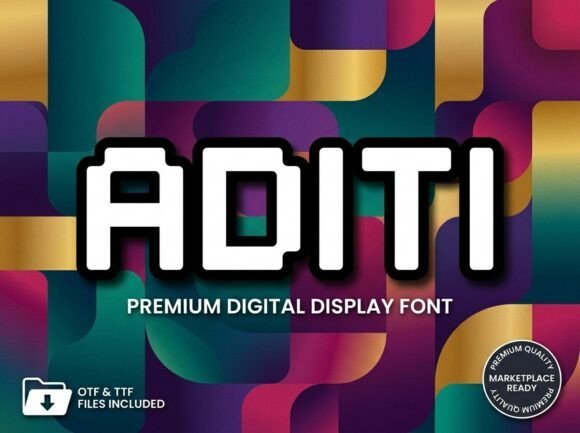
Unlock the Power of 8-Bit Chic with Aditi Font
As a designer, have you ever been tasked with crafting a logo that screams innovation and nostalgia at the same time? Perhaps you’re working on a project that requires a font that embodies the spirit of retro gaming and modern interface design. Whatever the challenge, we have the solution for you – meet Aditi Font, a premium digital display font that’s poised to revolutionize the world of tech-themed branding.
With its bold, blocky letterforms and clean geometric silhouettes, Aditi Font is the perfect choice for designers looking to create a pixel-perfect aesthetic. Its thick visual weight and smooth, high-contrast outlines make it an exceptional choice for e-sports logos, app interface headers, and high-impact social media graphics.
Key Features of Aditi Font
- Font Family: Aditi is a sans-serif font family designed for Indian languages, making it a unique and versatile option for multilingual applications.
- Character Set: Supports a comprehensive set of characters for Indian languages, including Devanagari, Tamil, Telugu, Kannada, and more.
- Font Styles: Available in multiple font styles, including Regular, Bold, Italic, and Bold Italic, providing flexibility for various design and layout requirements.
Designer Review: Aditi Font
I recently had the chance to work with the Aditi font, and I must say it’s a unique and interesting typeface. ✨ One of the things that works well is its ability to adapt to different languages and scripts. The font is designed to be highly legible, even at small font sizes, making it a great choice for digital interfaces.
Another strength of the Aditi font is its modern and sleek aesthetic. ✨ The font’s geometric shapes and clean lines make it a great fit for contemporary design projects. Additionally, the font’s weight system is well-designed, making it easy to create visually appealing typography hierarchies.
While the Aditi font has many strengths, there are a few limitations to consider. ⚠️ One of the main drawbacks is its limited expressiveness. The font’s geometric design can sometimes make it feel a bit cold and impersonal. Additionally, the font’s x-height is a bit larger than average, which can affect its readability in certain contexts.
Overall, I think the Aditi font is a solid choice for designers who need a highly legible and modern typeface. While it may not be the best fit for every project, it’s definitely worth considering for digital interfaces, signage, and other contexts where legibility is key.
- Highly legible even at small font sizes
- Adaptable to different languages and scripts
- Modern and sleek aesthetic
- Well-designed weight system
Getting the Most Out of Aditi Font
Aditi Font is a versatile and elegant font that can be used in various design projects. Here are some tips to get the most out of it:
- Use it for titles and headings to add a touch of elegance.
- Pair it with other fonts to create a unique and stylish look.
Aditi Font is commonly used in:
- Brand identity and logo design.
- Marketing materials such as broch